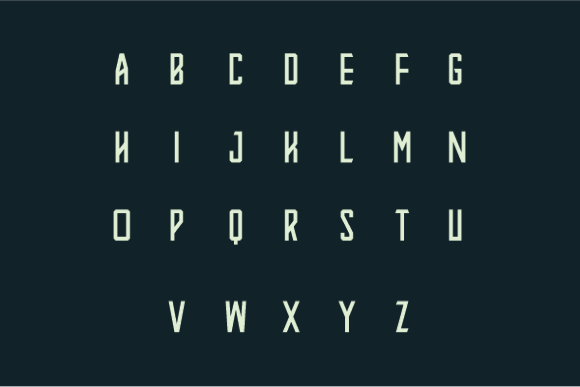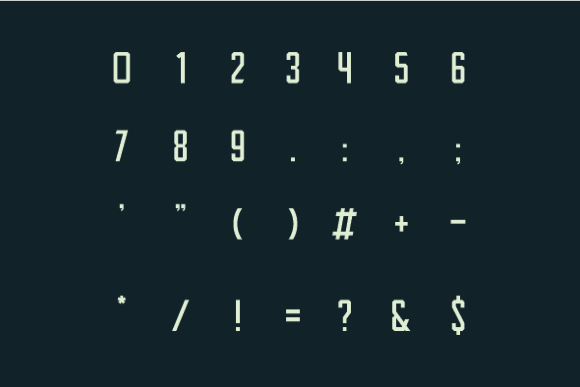
The Birth of a New Era in Typography
Imagine you’re brainstorming ideas for a futuristic sci-fi movie, and suddenly, the perfect font pops into your mind – one that screams innovation and cutting-edge technology. For designers like you, this moment is a thrill, and it’s exactly what the Bilhue Font is designed to evoke. This sharp, geometric typeface is the epitome of modern tech aesthetics, with its bold, minimalist structure and angular cuts.
With Bilhue Font, you can bring a sleek and commanding presence to any layout, making it perfect for sci-fi posters, logos, tech branding, and digital interfaces. Whether you’re creating a futuristic world or a high-tech startup, Bilhue Font is your go-to choice. Its versatility and modern style make it an invaluable asset for designers, allowing them to push the boundaries of creative expression and craft truly unforgettable designs.
Bilhue Font Key Features
- Font Family: Bilhue is a sans-serif font family designed for digital use.
- Unique Characteristics: Bilhue features a unique blend of modern and minimalist design elements, with a focus on readability and versatility.
Bilhue Font Review
The Bilhue font is a modern sans-serif typeface designed for digital use. In my opinion, it’s a decent addition to any designer’s toolkit, but it has some limitations that might make it less appealing to certain users. ✨
- Modern aesthetic: Bilhue has a sleek and contemporary design that’s perfect for digital applications.
- High legibility: The font’s clean lines and open counters make it easy to read, even at small sizes.
- Good for body text: Bilhue’s x-height is well-balanced, making it suitable for paragraphs and blocks of text.
- Not ideal for headlines: Bilhue’s sans-serif design makes it less suitable for bold, attention-grabbing headlines.
- Lack of expressiveness: The font’s modern design can sometimes feel too sterile or neutral, lacking the emotional impact of more expressive typefaces.
- Not a great choice for print: Bilhue’s design is optimized for digital use and may not translate well to print materials.
Overall, I think Bilhue is a solid choice for digital designers who need a clean, modern sans-serif font. However, it’s not a replacement for more versatile or expressive typefaces. ⚠️
To get the most out of Bilhue Font, use it for creative and artistic projects, such as:
1. Branding and logo design.
2. Infographics and data visualization.
3. Digital art and illustrations.
4. Social media graphics and posts.
Alternatives to Bilhue Font for Designers
Bilhue Font is a popular, modern script font known for its elegant and sophisticated feel. However, sometimes designers may need to explore other options. Here are a few alternatives:
Carolyna Pro is a high-end script font that boasts a luxurious feel, perfect for high-end branding, invitations, and special events. It’s ideal for designers who want to create a sense of sophistication and glamour. Compared to Bilhue Font, Carolyna Pro has a more refined and elegant feel, with a wider range of ligatures and swashes.
Great Vibes is a modern script font that exudes a carefree and playful vibe. It’s perfect for designers who want to create a fun and youthful feel for their branding or advertising campaigns. Compared to Bilhue Font, Great Vibes has a more casual and relaxed feel, with a wider range of alternates and ligatures.
Alex Brush is a beautiful, handwritten script font that’s perfect for designers who want to create a warm and inviting feel. It’s ideal for branding, packaging, and editorial design. Compared to Bilhue Font, Alex Brush has a more personal and handwritten feel, with a wider range of flourishes and imperfections.